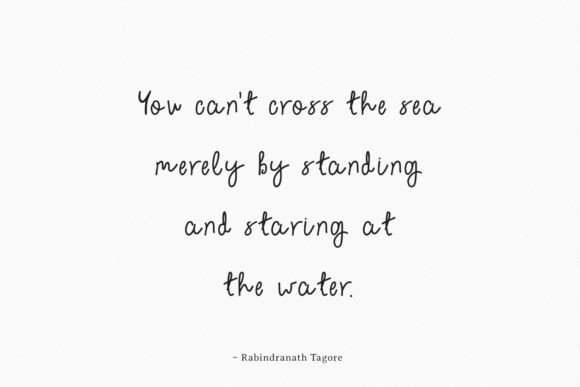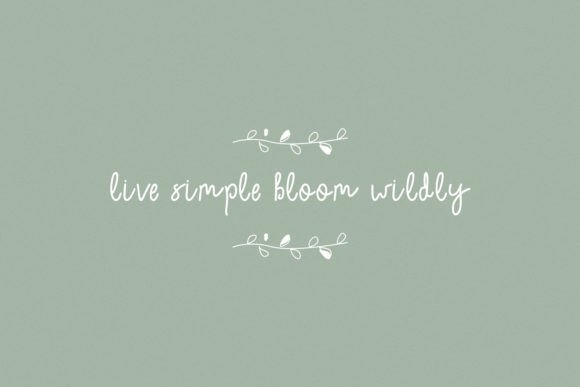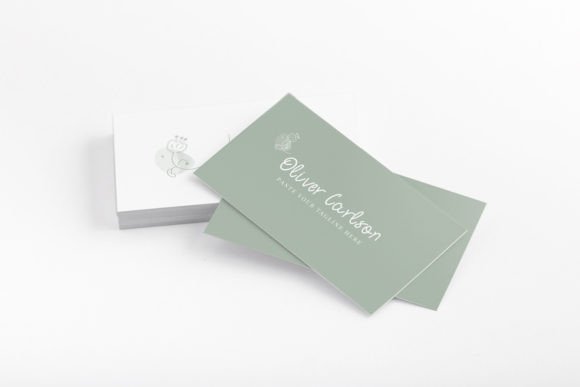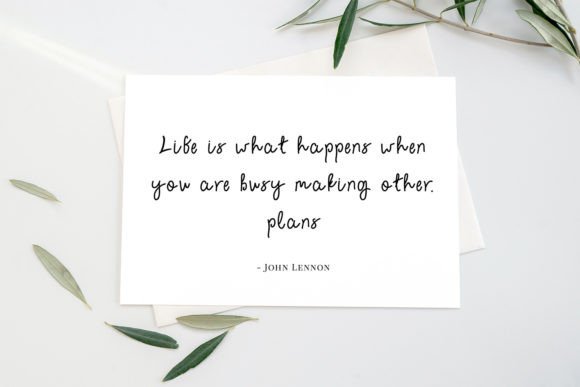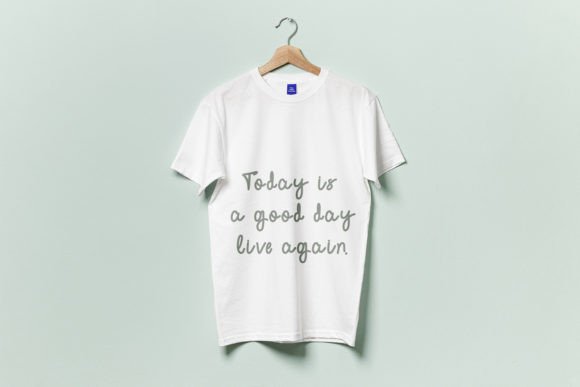
Introduction to Orhan Font
Have you ever stared at a blank page, searching for the perfect font to bring your creative vision to life? As designers, we’ve all been there – desperate for that one special font that will elevate our project from ordinary to extraordinary. For those moments of design desperation, we’re excited to introduce you to Orhan Font, a stylish and delicate handwritten font that’s sure to leave a lasting impression.
With its high-quality design and versatility, Orhan Font is an invaluable resource for designers looking to add a unique touch to their projects. Whether you’re working on a packaging design, creating a presentation, or crafting a logo, this beautiful font is sure to make your work stand out. Plus, with a transparent background, you can easily layer it over images or other design elements to create a truly stunning visual effect.
What makes Orhan Font truly valuable is its ability to add a personal touch to any creative project. And the best part? It’s available for free download, making it an accessible design resource for designers of all levels. Whether you’re a seasoned pro or just starting out, Orhan Font is sure to become your go-to font for any project that requires a little extra flair.
Key Features of Orhan Font
- Includes a comprehensive character set, supporting multiple languages and scripts for diverse creative projects.
- Designed with a modern aesthetic, making it perfect for contemporary design projects, such as branding, typography, and digital art.
- High-resolution design, suitable for print and digital applications, including posters, flyers, and social media graphics.
Honest Review: Orhan Font
As a designer, I’m always on the lookout for high-quality design resources that can elevate my creative projects. Recently, I had the chance to work with the Orhan Font, and I’m excited to share my honest review with you.
- ✨ Beautiful, elegant design that’s perfect for luxury and high-end projects.
- ✨ Highly customizable, with a wide range of font styles and weights to choose from.
- ✨ Transparent background, making it easy to work with in any design environment.
- ⚠️ Limited language support, which may be a concern for designers working on projects with multiple language requirements.
- ⚠️ Not ideal for use in small font sizes, as it can become difficult to read.
Overall, I’m impressed with the Orhan Font, and I think it’s a valuable addition to any designer’s toolkit. While it may not be perfect, its strengths far outweigh its limitations, making it a great choice for high-end creative projects.
Tips for Getting the Most Out of Orhan Font
Use Orhan Font to create a consistent brand identity across all your designs. Experiment with different font sizes and styles to add visual interest to your work. Take advantage of the font’s transparent background to create complex and layered designs.
Orhan Font is perfect for any creative project, from business cards to brochures, and from social media graphics to presentations. Download the font for free and start creating high-quality designs today.